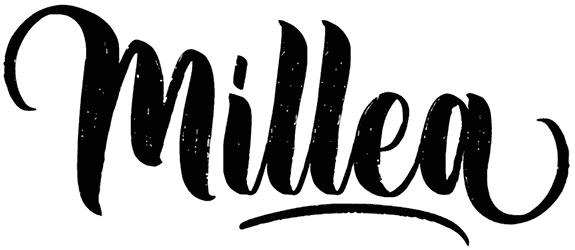
Millea Font
Millea is perfect for giving your designs a rugged feel, bringing bold design with smooth strokes. This brush font has mixed details that give it an earthy look and is a solid choice for anything that needs a personal an…
Millea is perfect for giving your designs a rugged feel, bringing bold design with smooth strokes. This brush font has mixed details that give it an earthy look and is a solid choice for anything that needs a personal and professional feel.
So whether you are busy with magazine layouts or want to design a poster for an event, keep this script font in your collection to add originality and value.